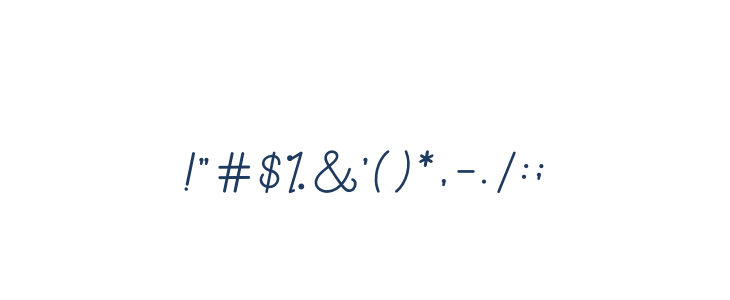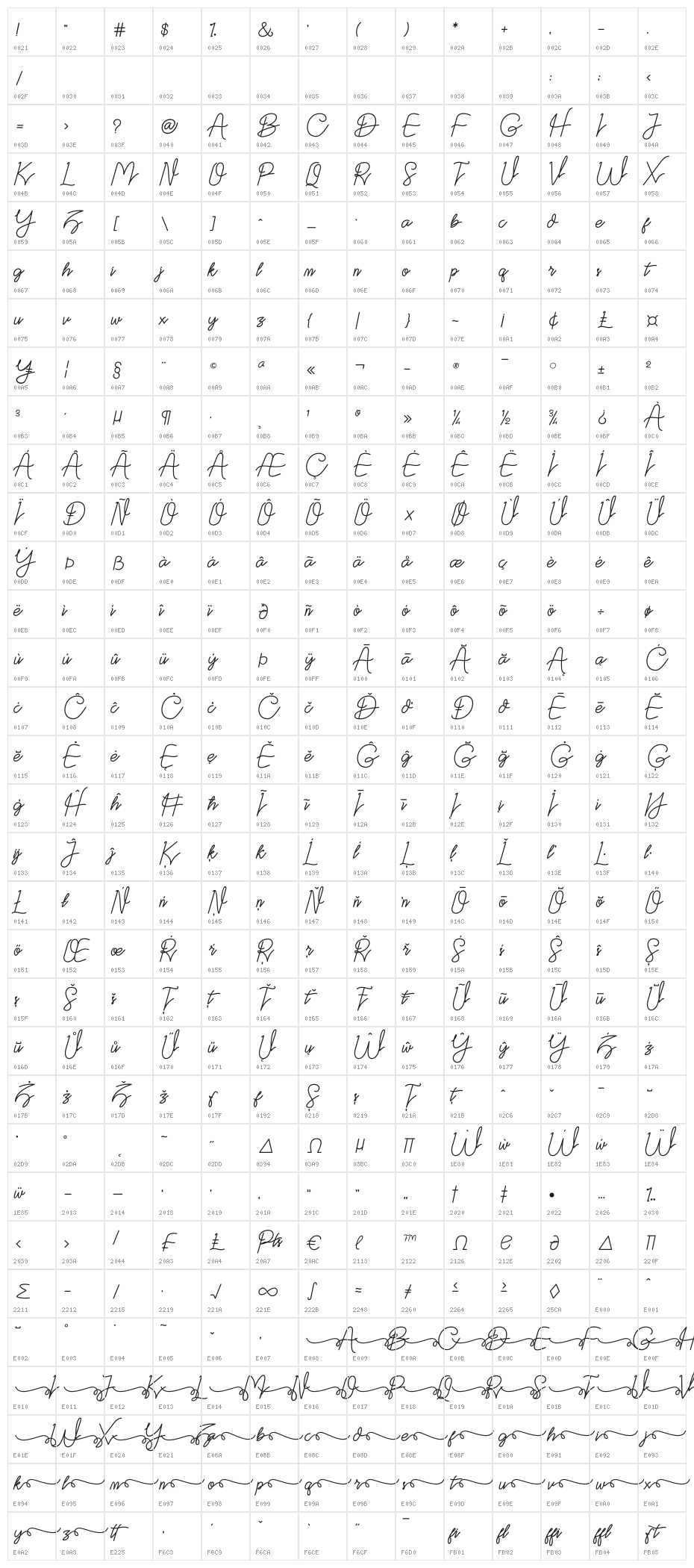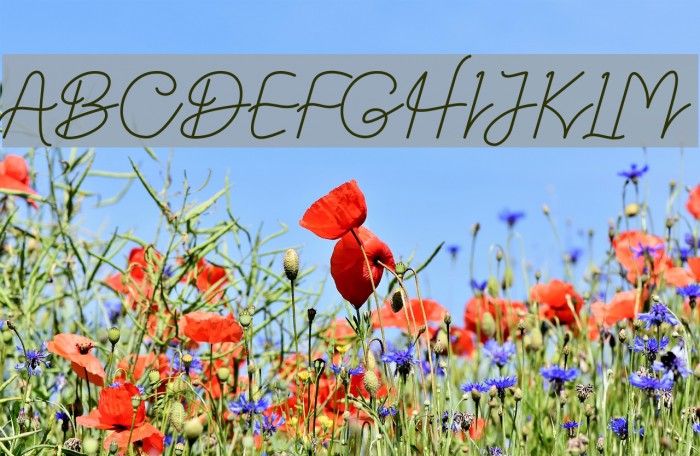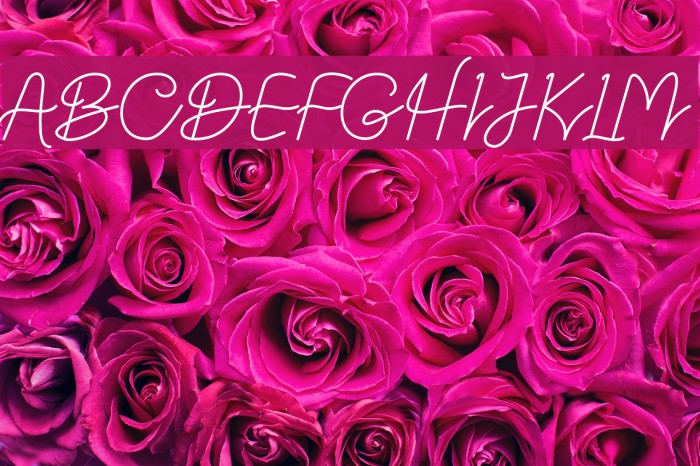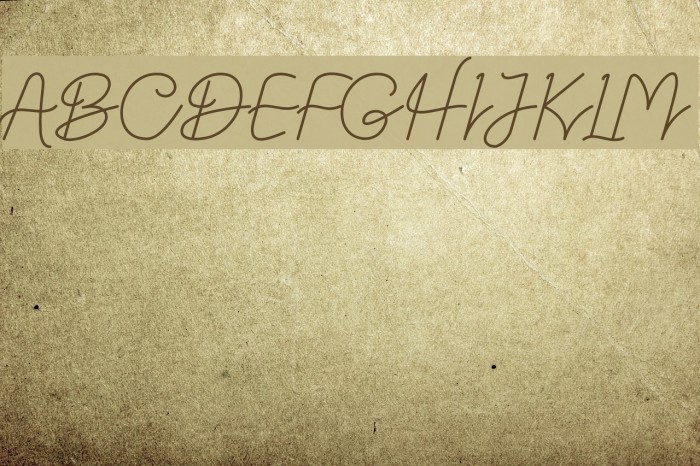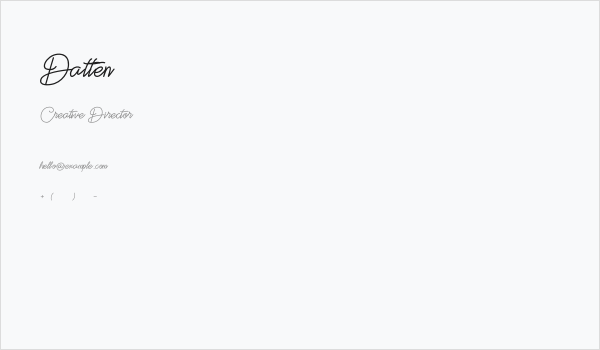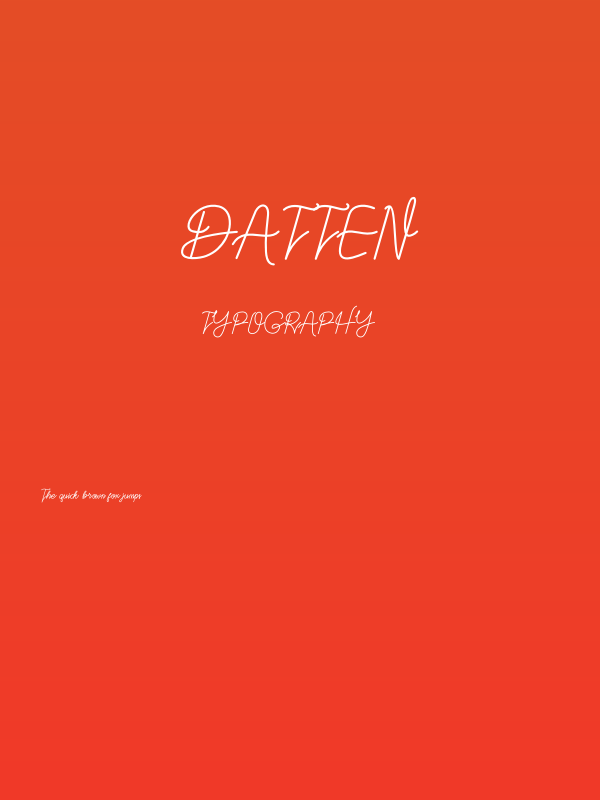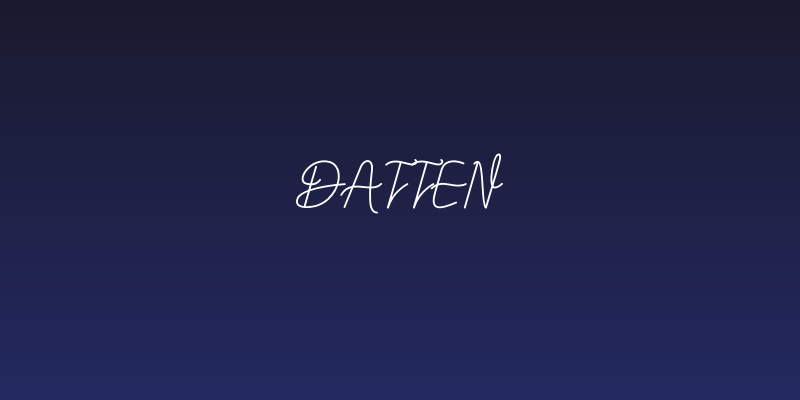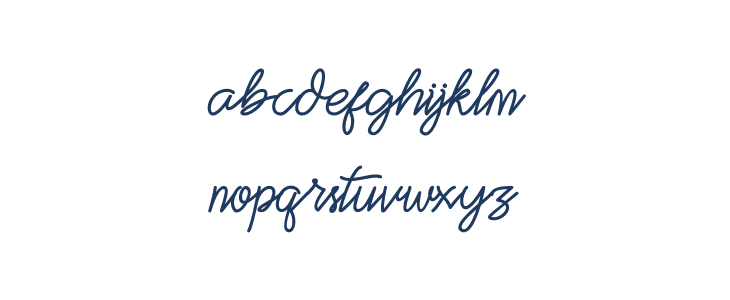
Datten Font
Datten Description
This font features a flowing, cursive style that mimics elegant handwriting. The uppercase letters are tall and slender, with graceful loops and curves that give a sense of fluidity and motion. The lowercase letters maintain a consistent style, with smooth connections between characters, enhancing the script's cohesive appearance. The numerals and special characters are designed to complement the alphabet, maintaining the same handwritten aesthetic. This font exudes a sense of sophistication and charm, making it ideal for projects that require a personal or artistic touch.
| Overall Style | Elegant, Handwritten |
| Use Case | Logos, Invitations, Artistic projects |
| Proposed Projects | Ideal for wedding invitations, greeting cards, personal branding, and artistic projects. |